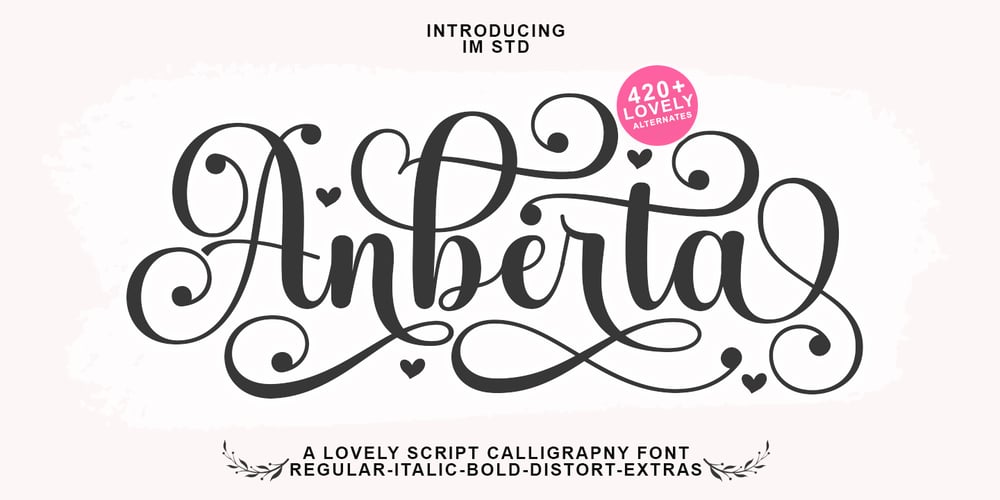
Anberta Font Family was designed by Ikhsan Maulana and published by IM Studio. Anberta contains 5 styles and family package options. Anberta is a new variant of the beautiful script type with linkable hearts which is here to complete your script font collection. Anberta is perfect for branding, wedding invitations, business cards, posters, quotes and other romantic projects.Anberta features OpenType style alternatives, international binders and support for most Western Languages included. To enable the OpenType Stylistic alternative, you need a program that supports OpenType features such as Adobe Illustrator CS, Adobe Indesign & CorelDraw X6-X7, Microsoft Word 2010 or a later version.Anberta is coded with PUA Unicode, which allows full access to all additional characters without having to design special software. Mac users can use Font Book , and Windows users can use Character Map to view and copy any additional characters to paste into your favorite text editor/application.If you need help or have any questions, let me know. I’m happy to help.Thank you.IM Studio.